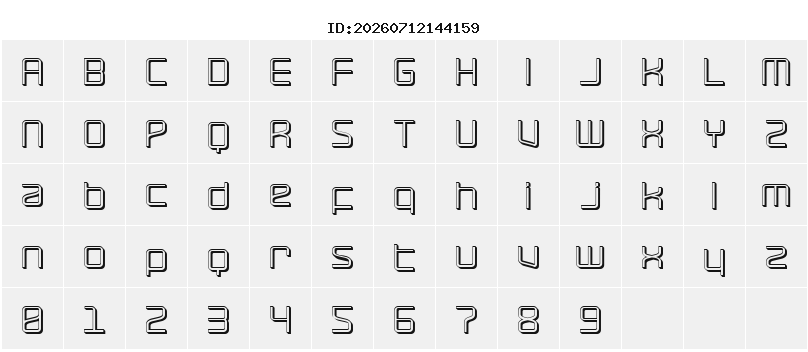
• Font Name: RaveParty Offset
• Full Font Name: RaveParty Offset
About RaveParty Offset.ttf
RaveParty Offset.ttf is a modern, elegant sans-serif font designed for ultimate readability and visual harmony. Perfect for branding, headlines, web design, and print materials.